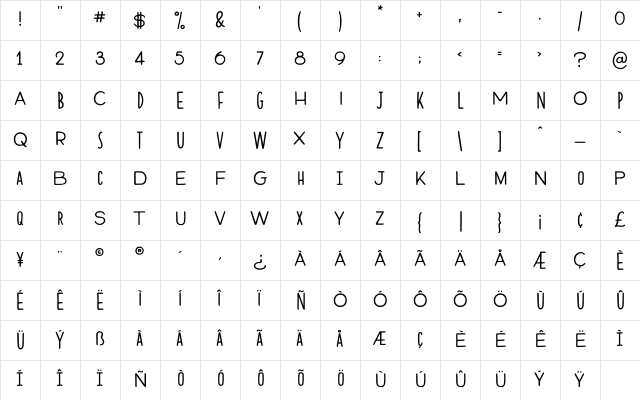
Modern Society Regular
| Designer | Ay͡ Atalay |
Design Context for Modern Society Typeface
Modern Society offers clean, dependable letterforms without strong stylistic allegiance, making it a practical choice for designers who need flexibility.